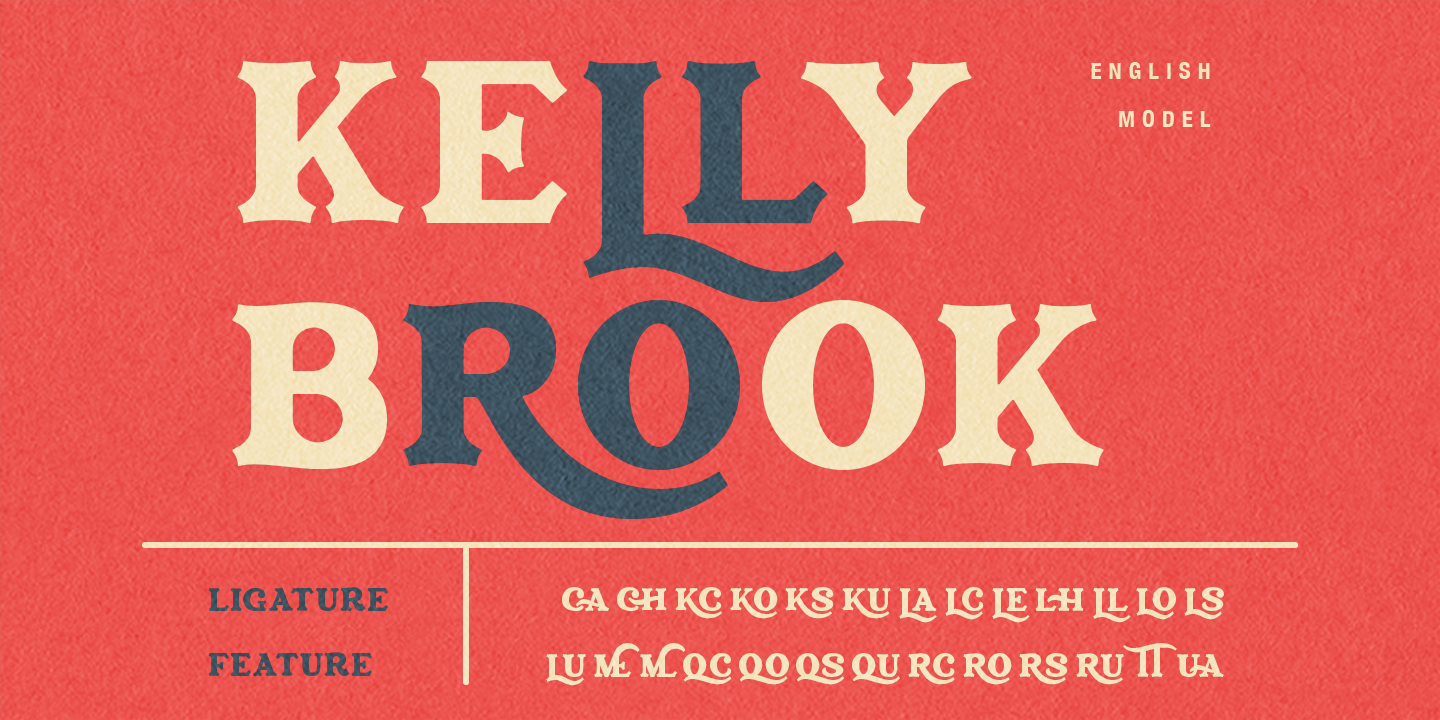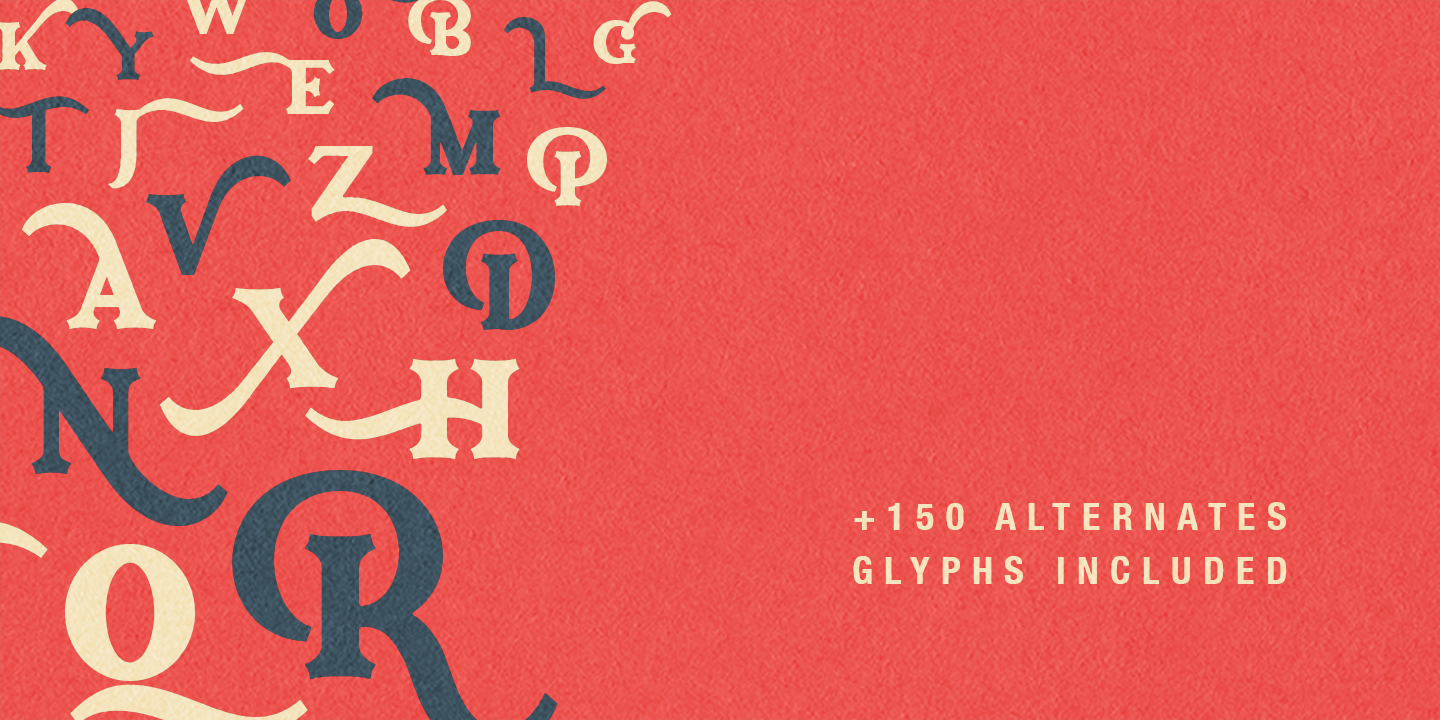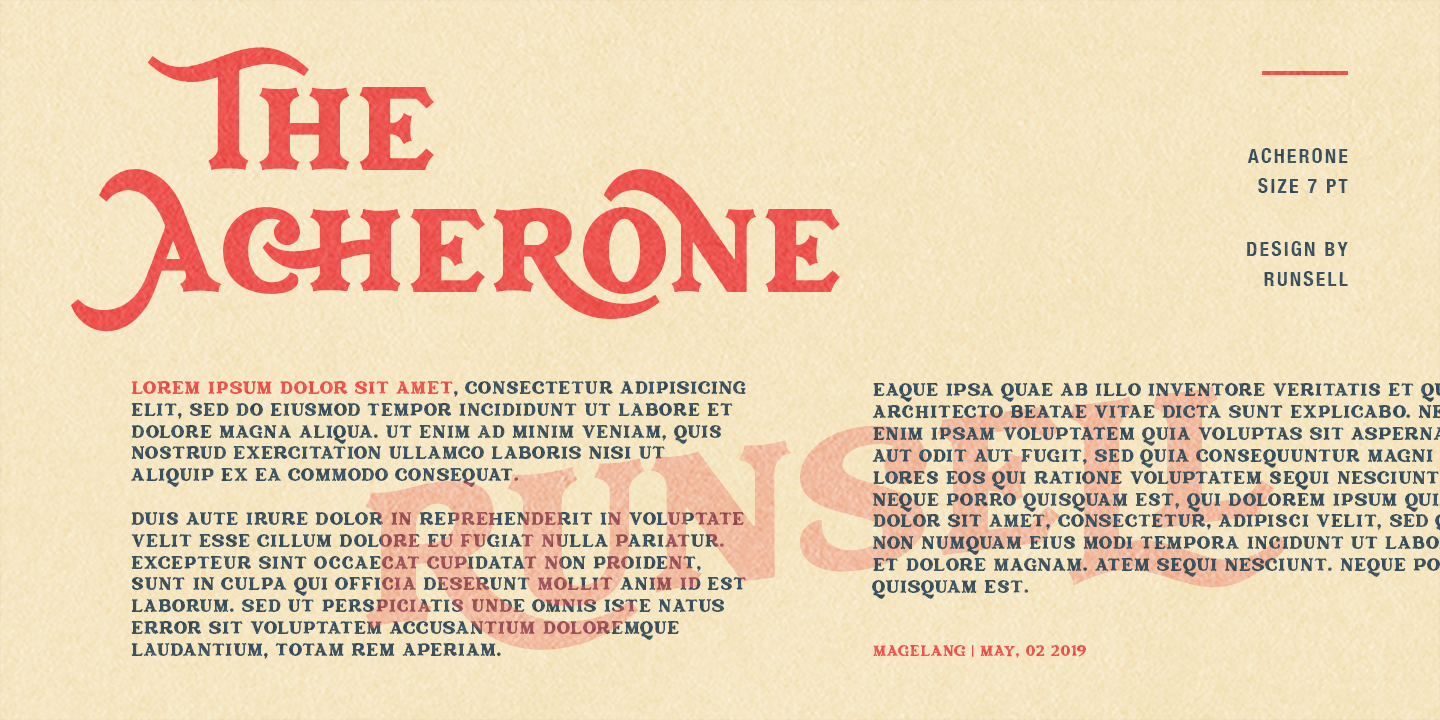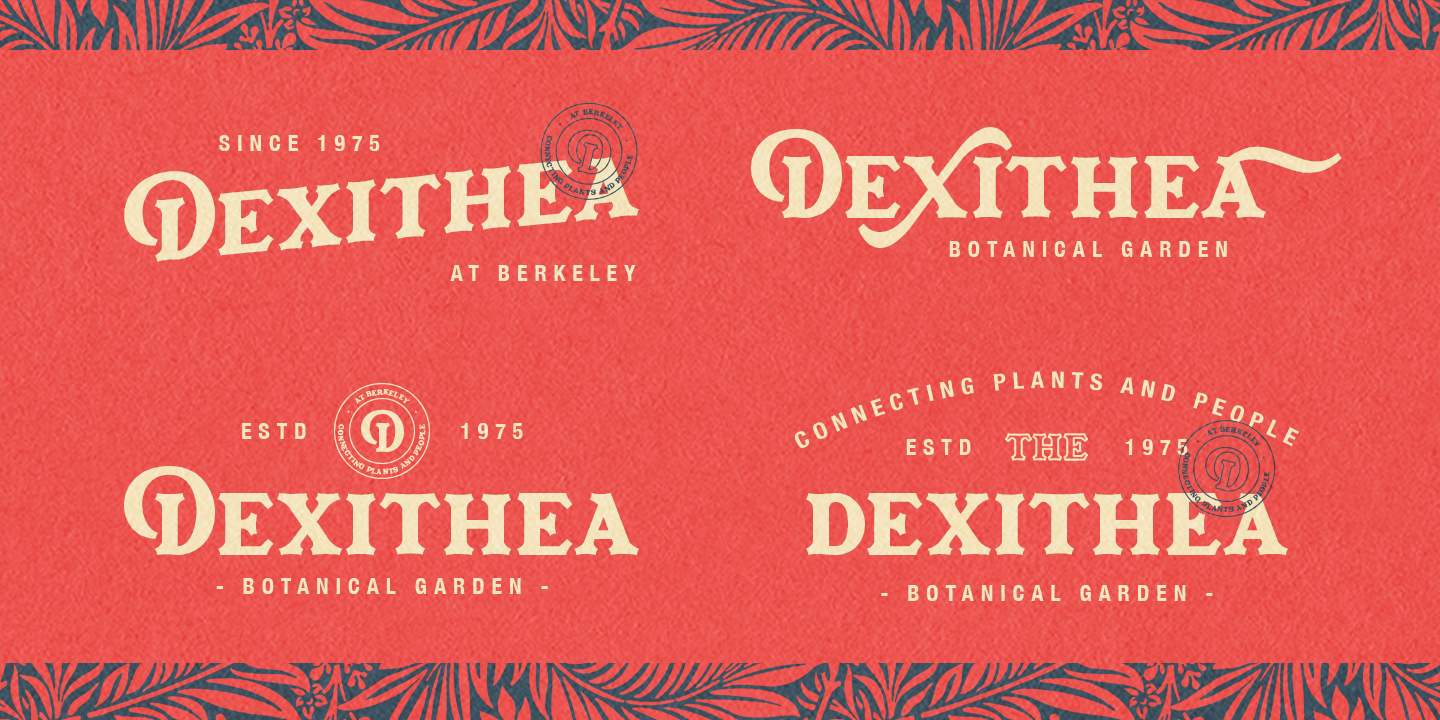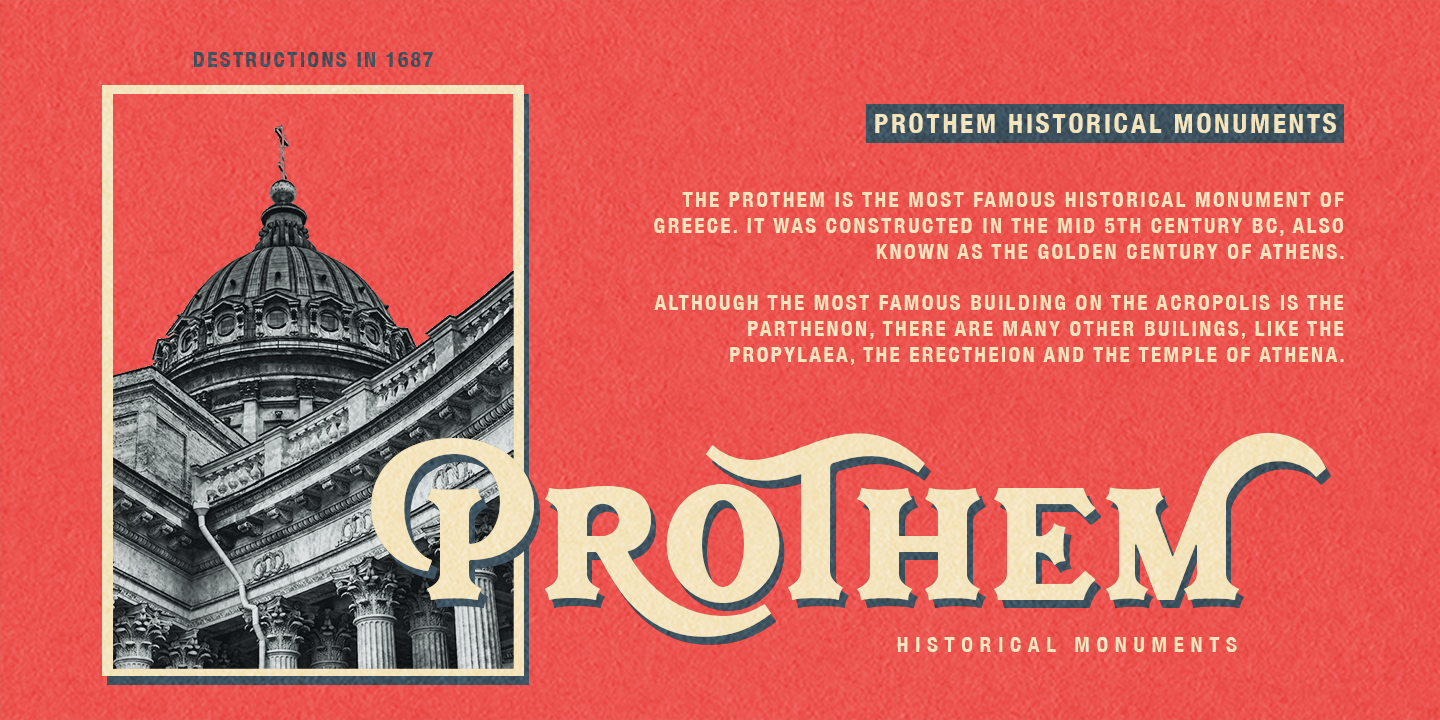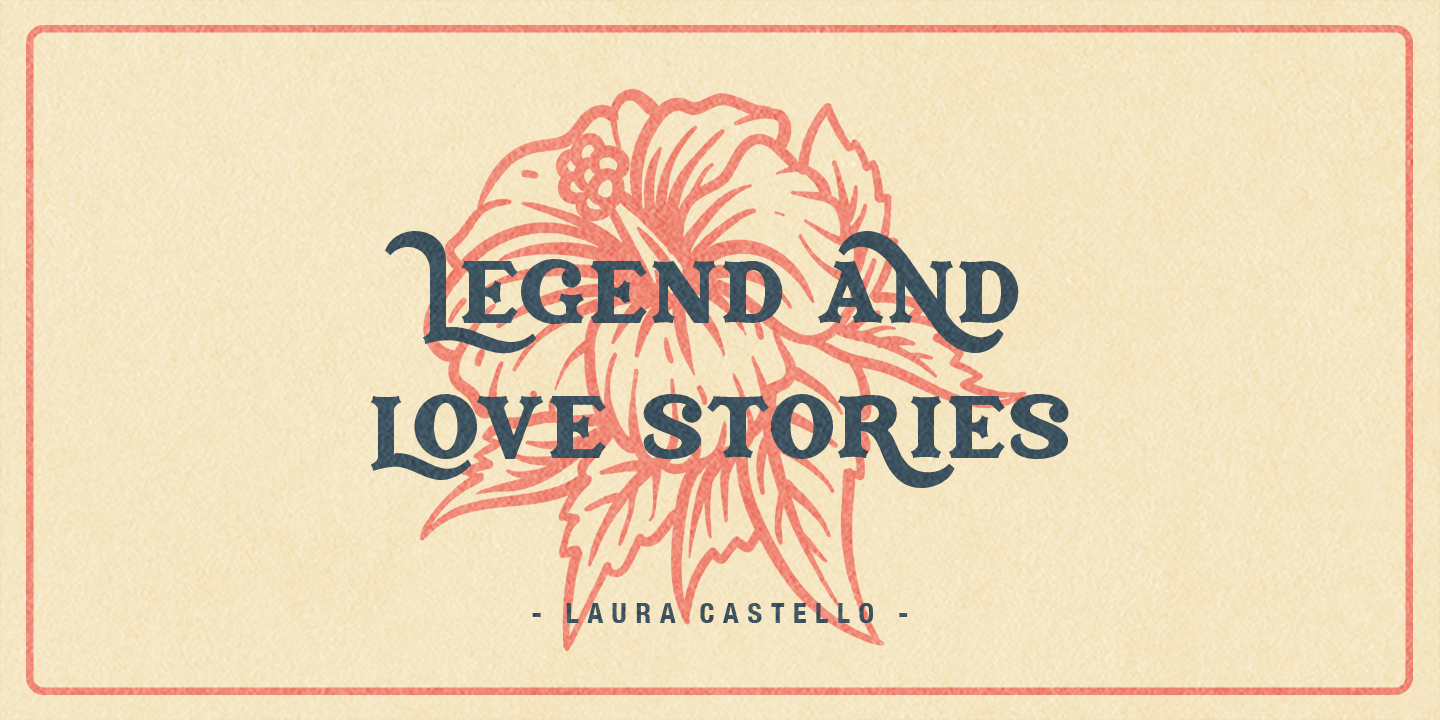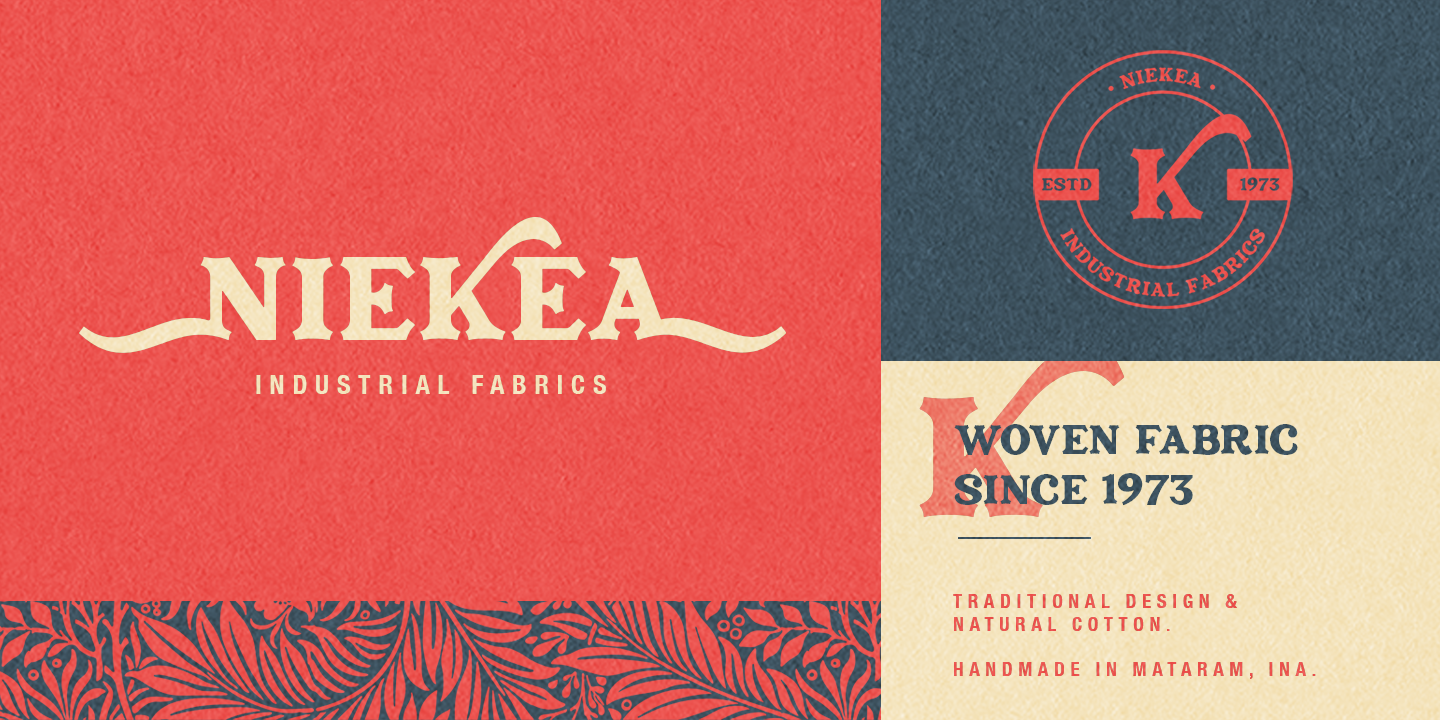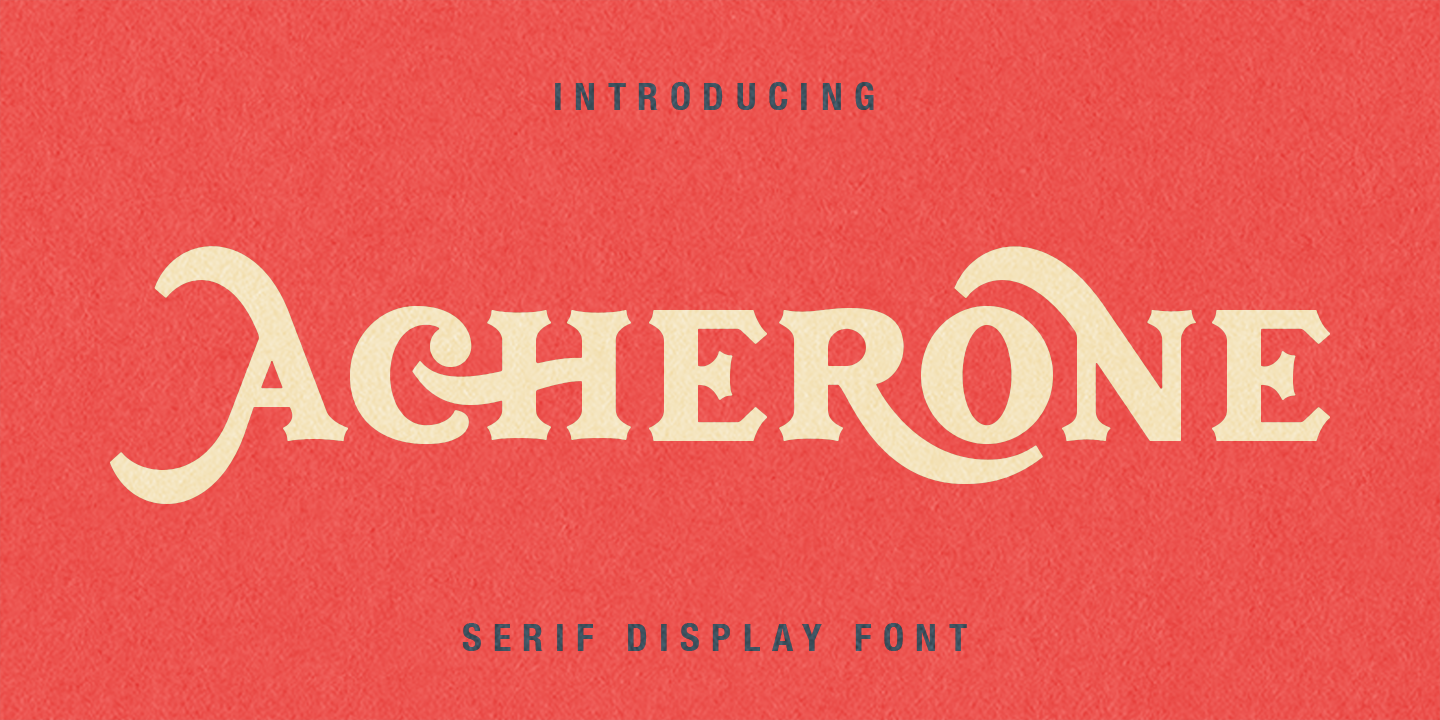
Introducing Acherone - A New Elegant Retro Display Typeface Acherone perfectly represents vintage esthetics in a contemporary serif typeface. It includes allcaps characters with over 500 glyphs with beginning swashes and ending swashes, a full set stylistic alternates ss01 - ss10, some ligatures features that makes the font look more esthetics. The Acherone matches applies in some designs such as the logotype, brand, magazine, website or blog headlines, packaging, branding, quotes, business cards and more custom design. It features uppercase, lowercase, numeral, punctuation & symbol, ligatures, stylistic alternates, multilingual support and is PUA encoded (fully accessible without additional design software).